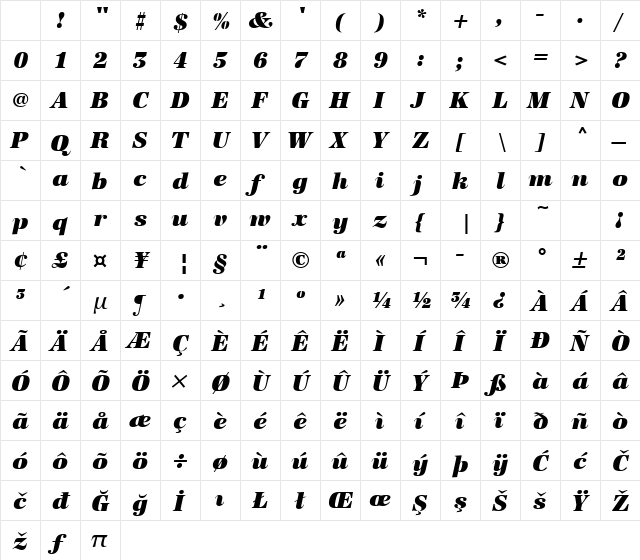
URWAntiquaAltTSup is a composed and adaptable typeface that performs quietly and consistently across a wide range of design contexts. The slanted form adds forward momentum and visual energy.